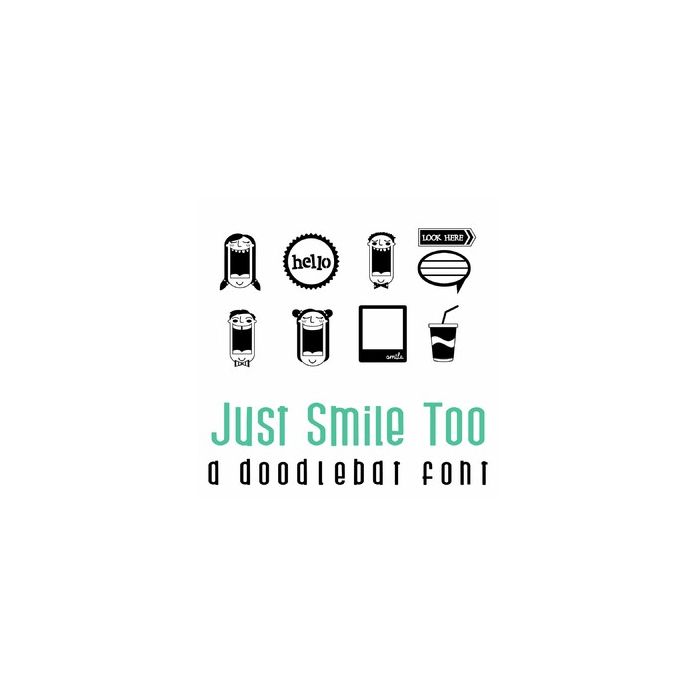
This fun doodlebat font features 26 smiling faces big enough to write a little not and also includes cool little journaling images and frames. Perfect for cards, gifts, decor, crafts, scrap book pages, planner stickers and more!